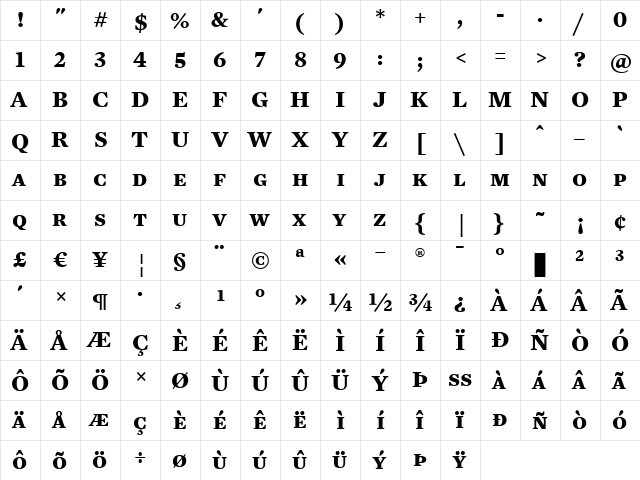
Mercury Text G4 Bold
Design Context for Mercury Text G4 Typeface
Mercury Text G4 offers clean, dependable letterforms without strong stylistic allegiance, making it a practical choice for designers who need flexibility. Its bold stroke weight gives it real presence on the page.